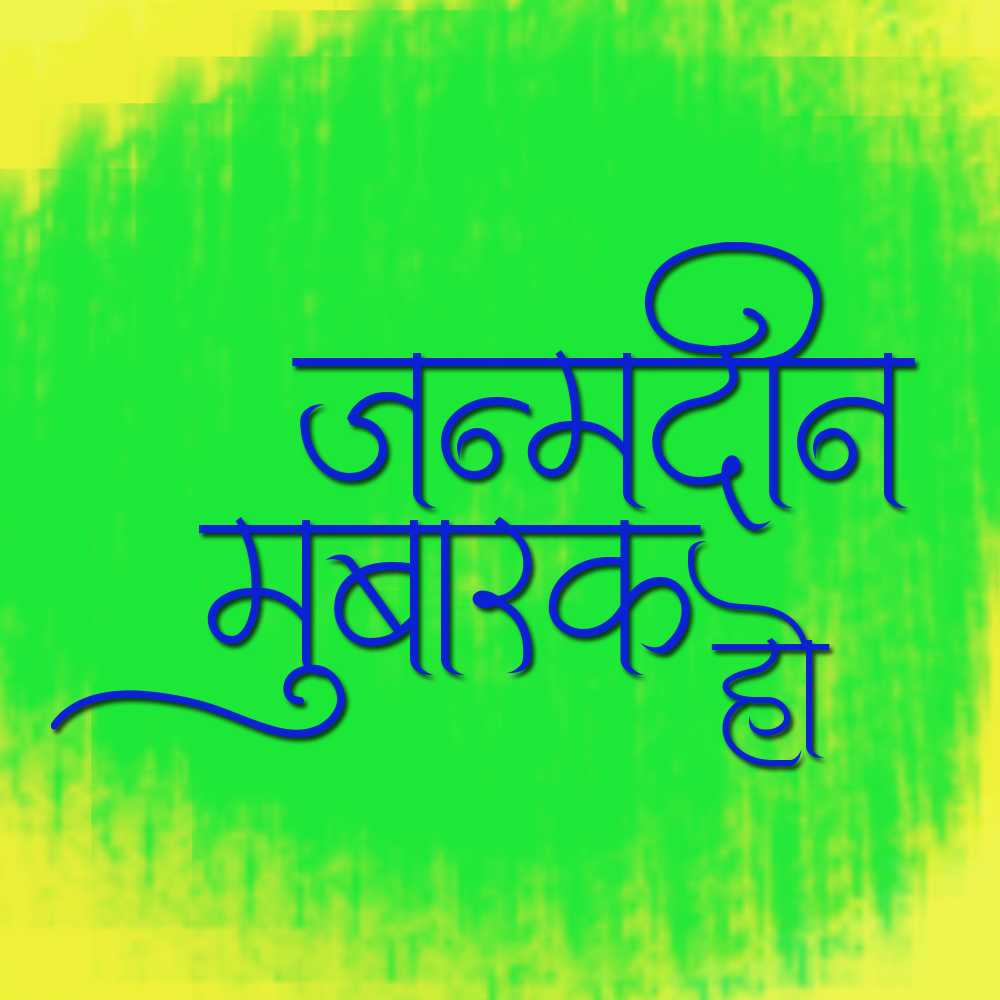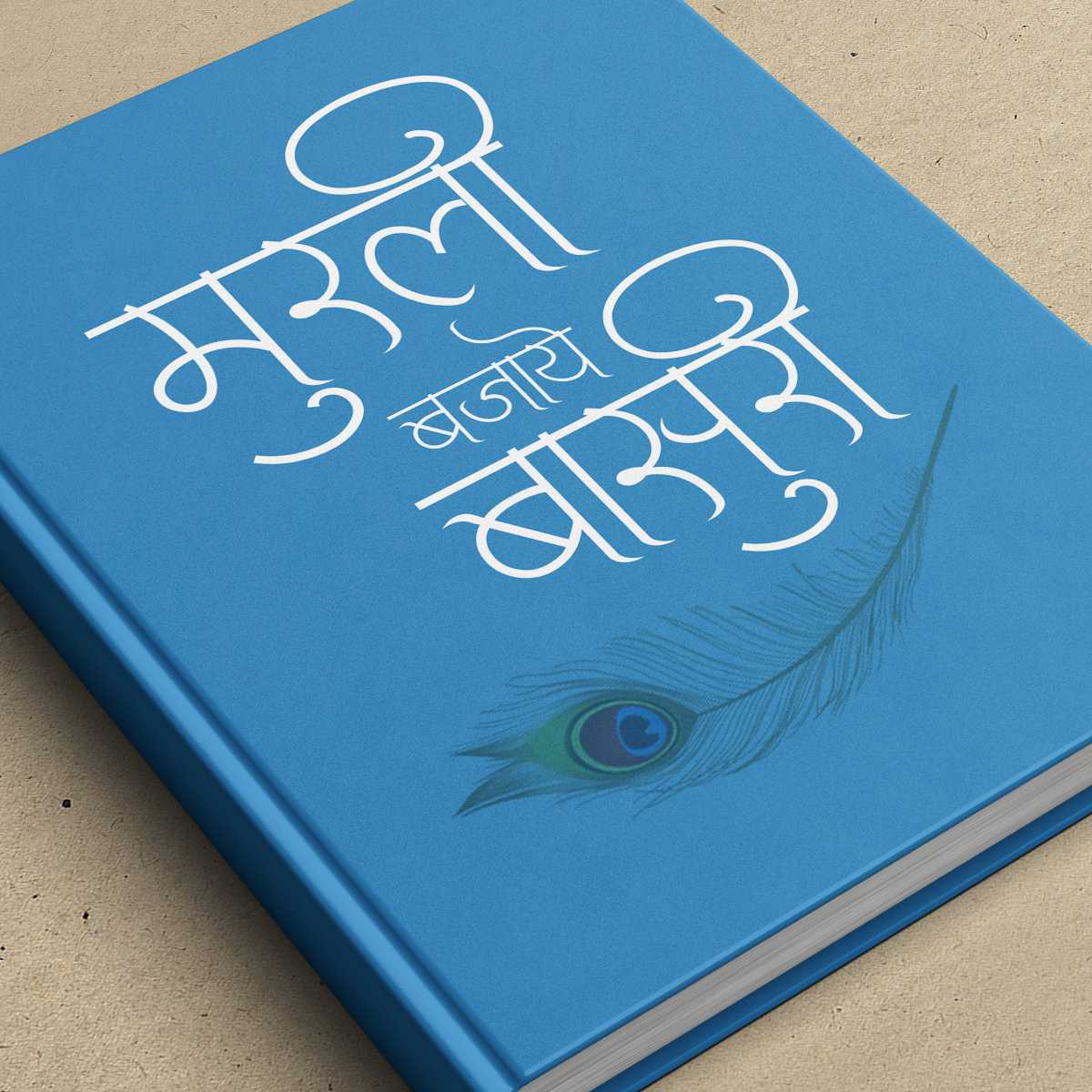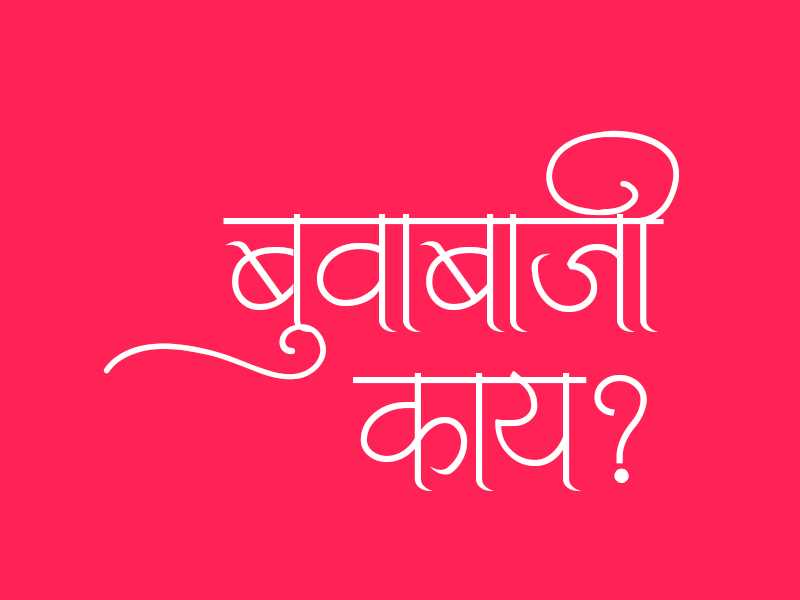
AMS Diya
AMS Diya Design Inspiration
About AMS Diya Font
Light up your typography with AMS Diya, a versatile publication font that brings clarity and readability to your designs. Whether you're searching for AMS Diya font download options or specifically looking for AMS Diya publication font, this font is perfect for various design applications. This publication font combines elegance with functionality, making it perfect for various design applications.
AMS Diya is a professionally crafted publication typeface that brings clarity and style to your projects. Designed with attention to detail, it supports hindi and marathi characters flawlessly.
Whether you're working on invitations, logos, posters, or other creative projects, AMS Diya delivers consistent performance across both digital and print media. This carefully designed typeface ensures readability and visual appeal in all your design work.
Why Choose AMS Diya?
AMS Diya excels in various design scenarios. Here are the most suitable applications:
About AMS Diya Typography Style
AMS Diya is a professionally crafted publication font that exemplifies modern Hindi typography design. This free font is perfect for designers seeking professional branding and logo design projects.
Available in 1 weight and supporting hindi, marathi scripts, AMS Diya offers exceptional versatility for both digital and print media. Whether you're working on invitations, logos, posters, this carefully designed typeface ensures consistent quality and professional results across all your typography projects.